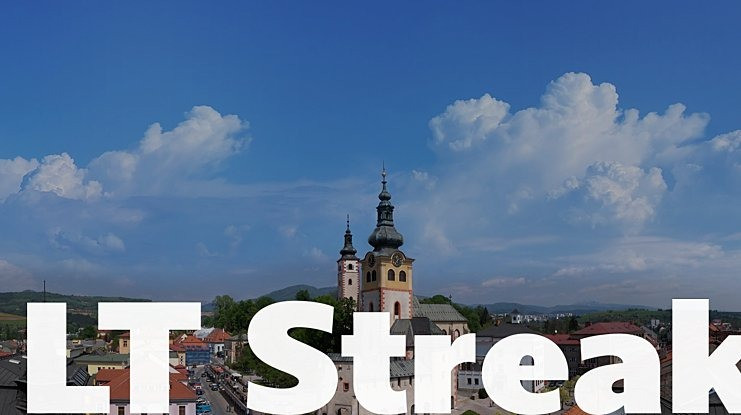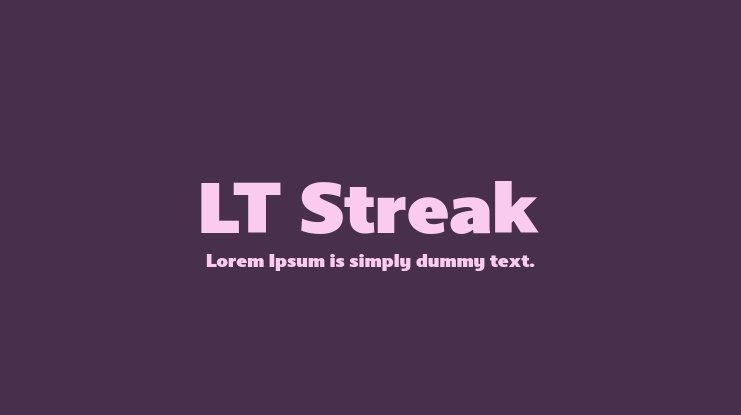
LT Streak Sans Serif Font, This font was created for all forms of business and branding such as clothing, logos, skate boards and others according to your needs.
LT Streak Font
| Designer Name: | Daniel P. Lyons |
| Classification: | Sans Serif Fonts, Style / Aesthetic Fonts |